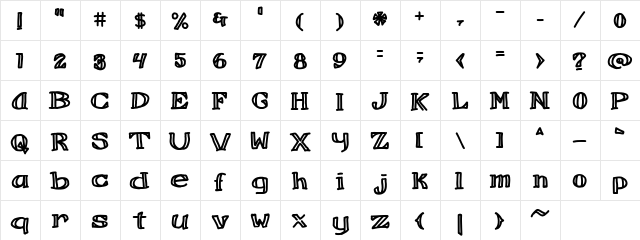
Refreshing Beverage Regular
| Foundry | P.D. Magnus |
| Designer | fontmonkey |
Design Context for Refreshing Beverage Typeface
Refreshing Beverage is a composed and adaptable typeface that performs quietly and consistently across a wide range of design contexts.